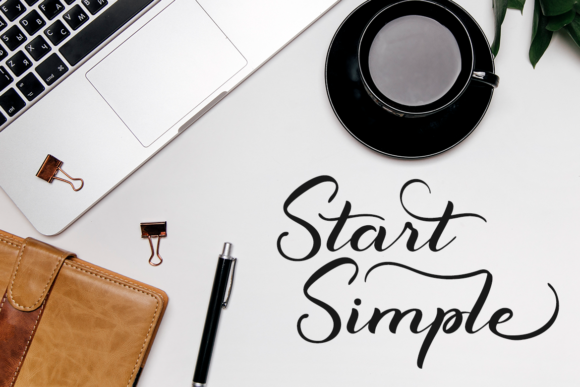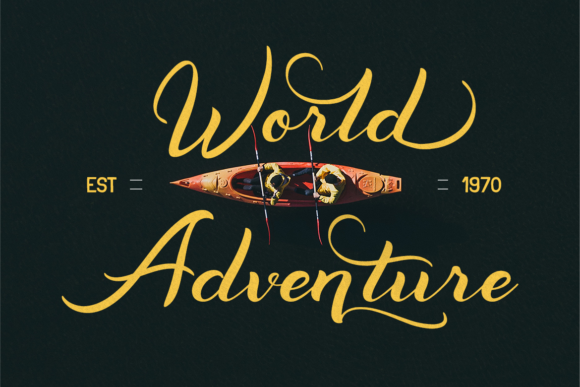
Wayville Font
db-ku.com - Script & Handwritten -- Wayville is a casual script font, with clean high contrast stroke, slanted and fun character. This font is good for logo design, Social media, Movie Titles, Books Titles, short text even long text letters, and good for your secondary text font with sans or serif.